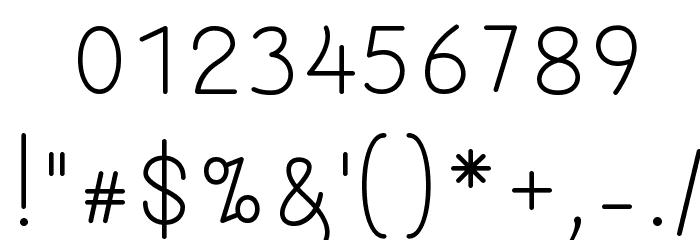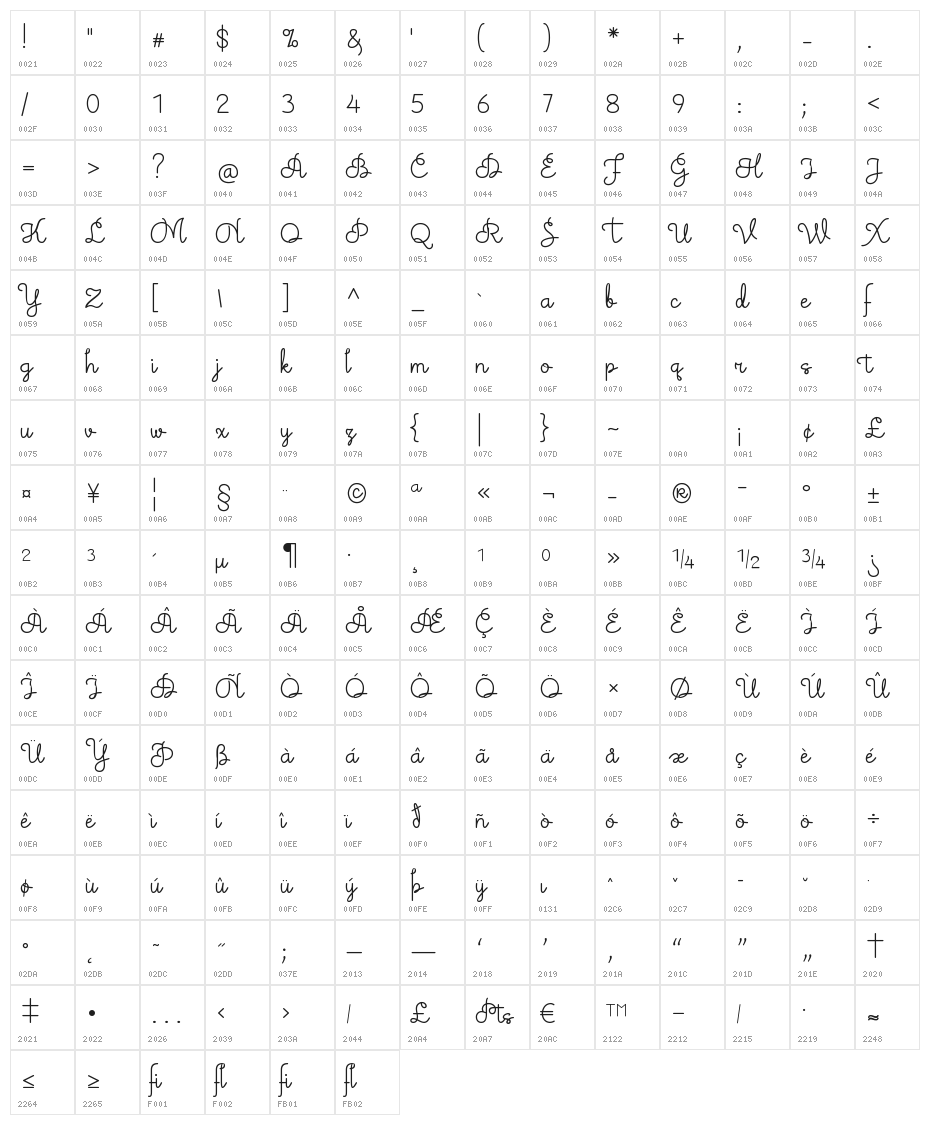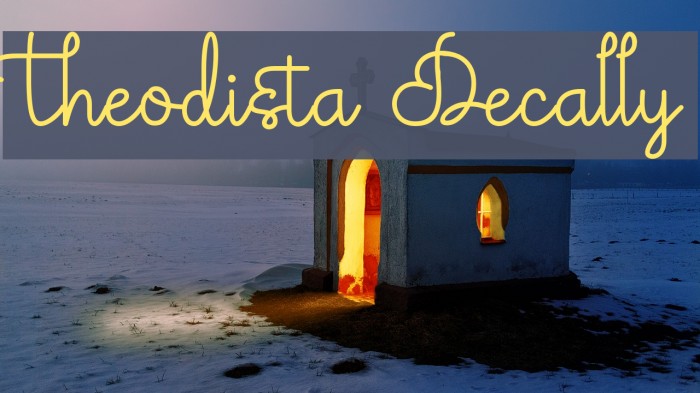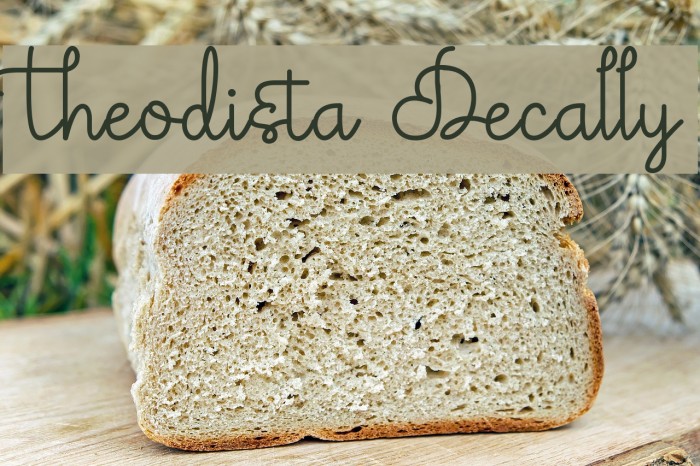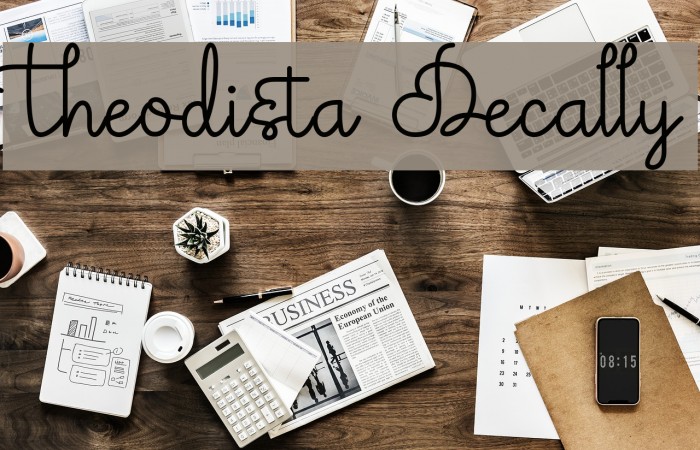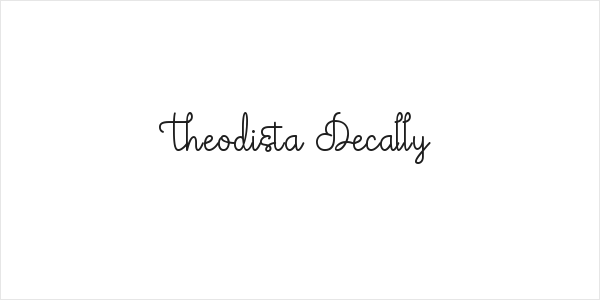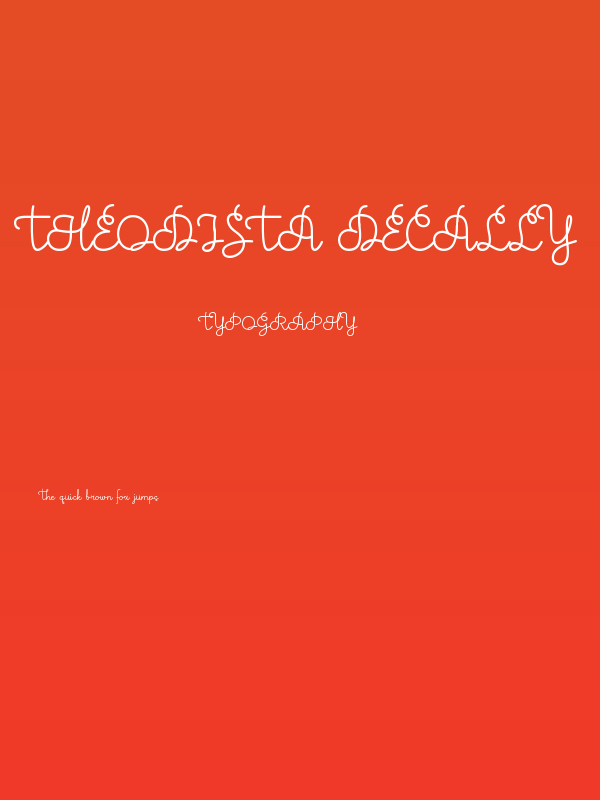
Theodista Decally Font
Theodista Decally Description
This font features a playful and whimsical script style, characterized by its looping and flowing letterforms. The uppercase letters are particularly ornate, with each character exhibiting a unique flourish that adds to the overall decorative appeal. The lowercase letters maintain a consistent flow, making them highly legible despite their cursive nature. The numerals are straightforward and align well with the overall style, while the special characters retain the font's signature loops and curves. This font's design is both elegant and approachable, making it suitable for a variety of creative applications.